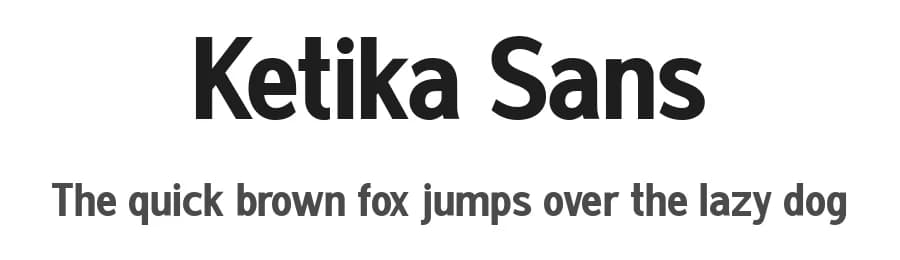
About Ketika Sans Font
Ketika Sans is a sans-serif font designed by Bayu Prahara. It includes 352 glyphs, a regular weight, TTF (TrueType) format, and 253 languages. Ketika Sans is free to download; check the license details on this page before commercial use. Sans-serif fonts like Ketika Sans work best for clean body text, user interfaces, branding, and modern layouts.
Ketika Sans Font is a versatile sans-serif font that works for both headings and body text. Pair it with a contrasting serif or slab serif font to add visual interest and a clear distinction between titles and body copy.
Ketika Sans Font
by Bayu Prahara
Ketika Sans Font is a sans serif typeface by Bayu Prahara, ideal for logos, invitations, branding, and creative projects.